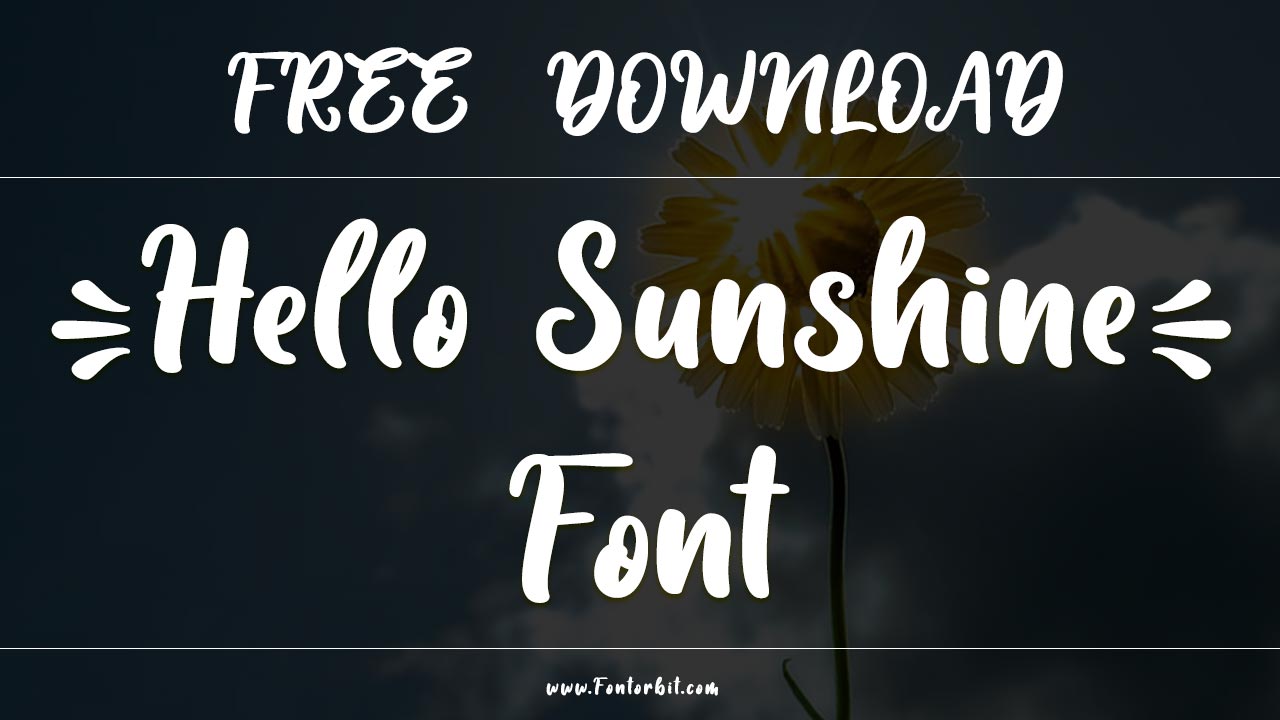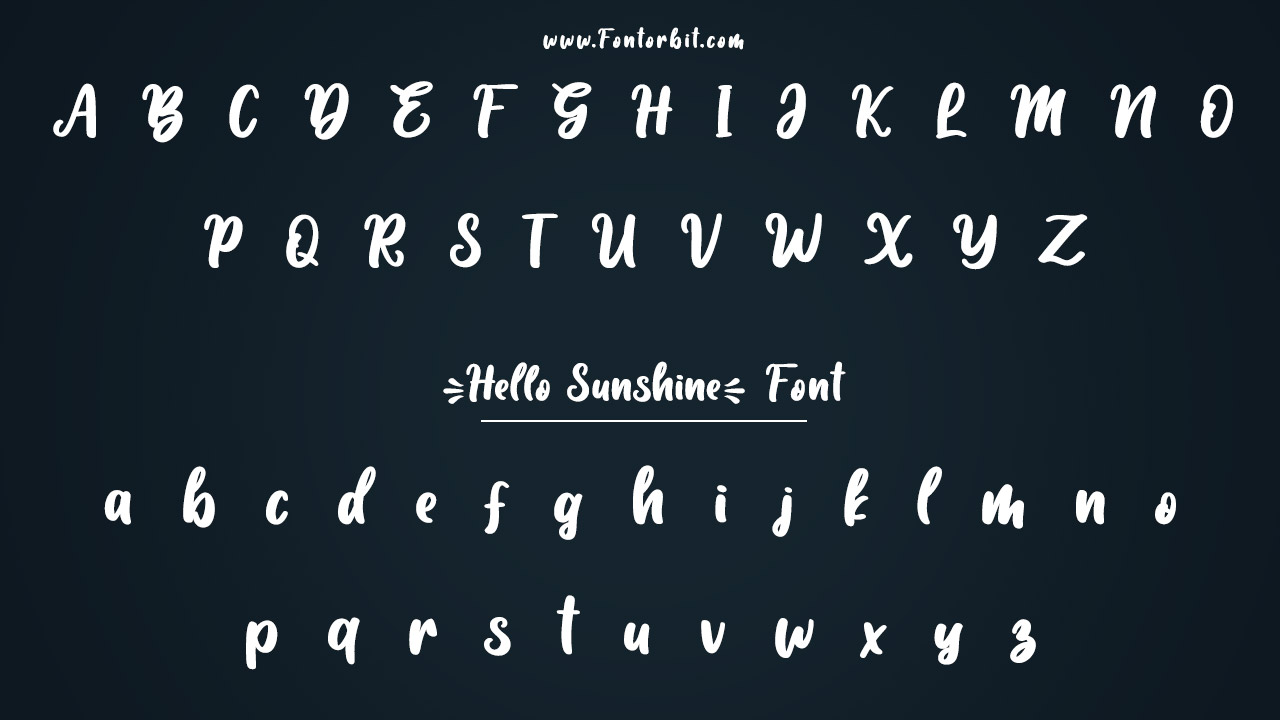
Hello Sunshine Font, designed by Nicky Laatz, is a delightful handwritten script that brings warmth and joy to any project. Whether you’re designing invitations, advertisements, or branding materials, this typeface provides a perfect balance between modern fonts and vintage charm.
Why Choose Hello Sunshine Font?
Hello Sunshine is more than just a typeface—it’s a versatile font family that includes various elements to enhance your designs. Here’s why designers love it:
- Duo-Styled Handwritten Font – A perfect blend of script and marker styles
- Accented Characters – Supports multiple languages
- Alternate Characters & Extra Characters – Adds uniqueness to your text
- 52 Bonus Ornaments – Enhances your creative designs
Hello Sunshine Font Family Includes
- Hello Sunshine Regular – A smooth, flowing script
- Hello Sunshine Marker – A casual, handwritten marker font
Where to Use Hello Sunshine Font?
This font is ideal for a variety of creative projects:
- Branding & Logos – A perfect match for businesses that want a warm, inviting feel
- Printed Materials – Suitable for posters, invitations, and advertisements
- Social Media Graphics – Enhances engagement and visibility
- Typography-Based Projects – A great option for calligraphy and retro fonts
2. Does Hello Sunshine include alternate characters?
Yes, it includes alternate characters and extra characters to enhance creativity.
4. Does Hello Sunshine support multiple languages?
Yes, it includes accented characters for multilingual support.
5. Is Hello Sunshine suitable for printed materials?
Yes! It is perfect for posters, invitations, advertisements, and branding.